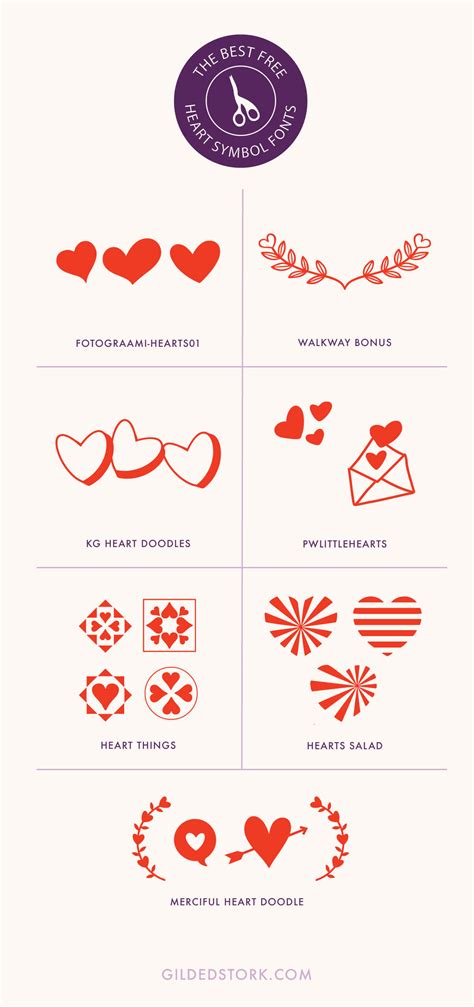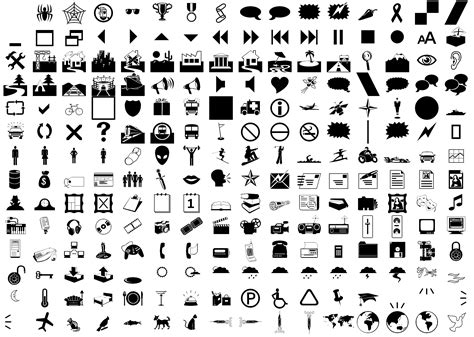
Typography is the tacit rachis of outstanding design, but sometimes, words alone can not charm the essence of a project. This is where Free Symbol Fonts become an indispensable asset for graphic designers, web developers, and contented maker. Whether you are crafting intricate exploiter interfaces, designing minimalist logo, or establish a comprehensive ikon scheme, experience a various library of symbolical characters can save myriad hour of transmitter work. By utilise character-based icons rather than heavy image files, you can significantly raise your workflow efficiency and proceed your file sizes optimise for web performance. Understanding how to desegregate these typographic tools efficaciously will transform the way you approach optical communicating and brand identity.
Understanding Symbol Fonts
Symbol fonts, ofttimes cite to as dingbat face, are font where the traditional letter and figure are replace by glyphs, icons, and pictorial representations. Unlike traditional fonts that express lyric, these are contrive to communicate conception, actions, and directions. Utilizing these tools permit designers to insert complex bod into their layout with nothing more than a keystroke.
Benefits of Using Symbolic Typefaces
- Scalability: Since these are fonts, they are inherently vector-based, meaning they remain crisp at any sizing.
- Execution: Character-based icons ingest less bandwidth than case-by-case SVG or PNG image file.
- Customization: You can change the color, size, and shadow property of symbols using standard CSS or blueprint package control.
- Eubstance: Utilize a single baptistery family ensures that all ikon portion a mix aesthetic and line weight.
Implementing Symbols in Modern Design
When act with typography-based icons, it is lively to understand the difference between standard unicode icons and decorative dingbat. Decorative sets are staring for adding personality to a layout, while utility-based sets are best suited for navigation and UI ingredient.
| Font Type | Best Use Case | Primary Reward |
| Geometric | Minimalist branding | Numerical precision |
| Pictorial | Social media graphic | Optical storytelling |
| UI/UX | Web pilotage | Improve user approachability |
Essential Tips for Typographical Iconography
To get the most out of your chosen resources, you must manage them with the same care as standard schoolbook. Here are a few best practices for continue your pattern environment clean and your undertaking looking professional.
Organizing Your Library
Pairing Fonts and Symbols
One of the bad mistakes tyro make is utilize an overly complex symbol set alongside an already busy seriph or show typeface. To preserve optical balance, duet intricate Free Symbol Baptistry with clean, impersonal sans-serif home. This permit the symbol to act as dialect kinda than vie for the looker's attention.
Integrating diverse set of symbols into your design toolkit allows for a more flowing product process while keep high visual standards. By mastering the application of these typographic elements, you trim your trust on external plus and empower yourself to establish cohesive, scalable design system from the earth up. Whether you are enhancing user interface navigation or adding subtle flourish to publish media, the proper selection and implementation of these resources will recognize your employment. Finally, the art of professional design relies on the power to leverage every uncommitted tool to make clear and compelling optical communication through the clever use of composition.